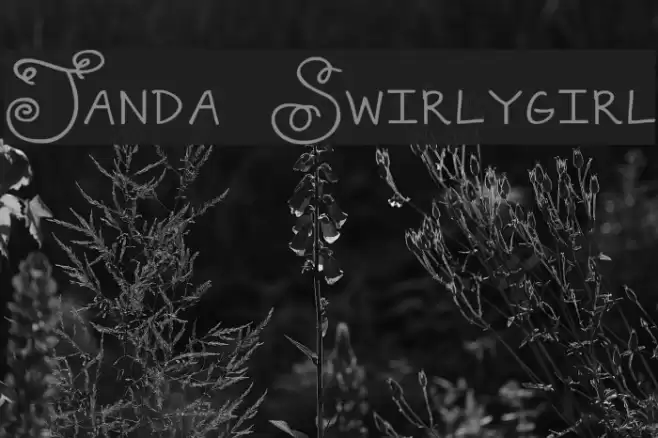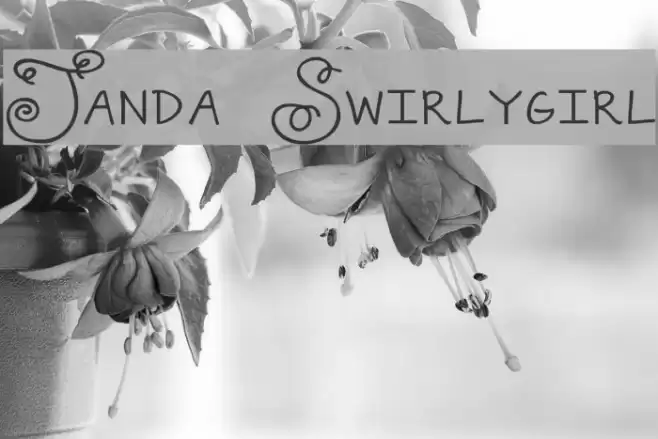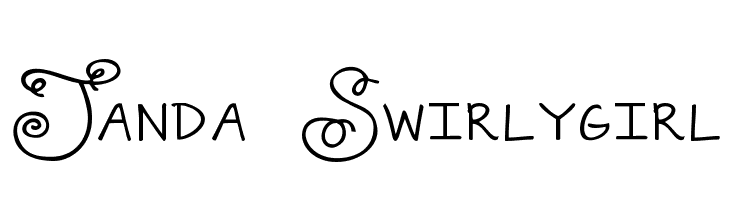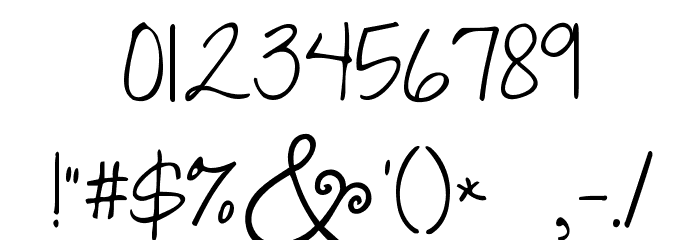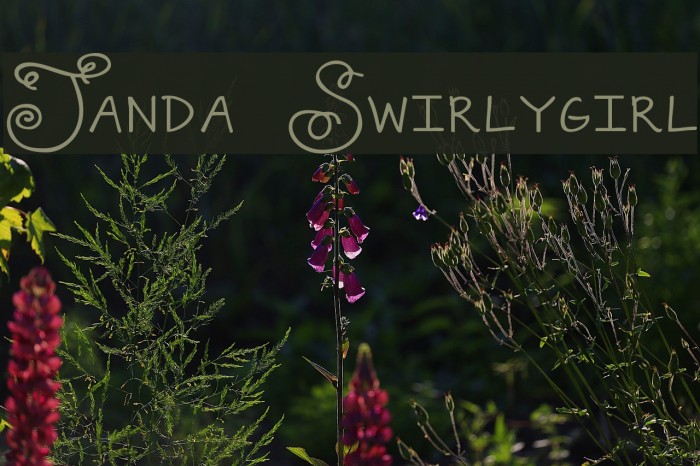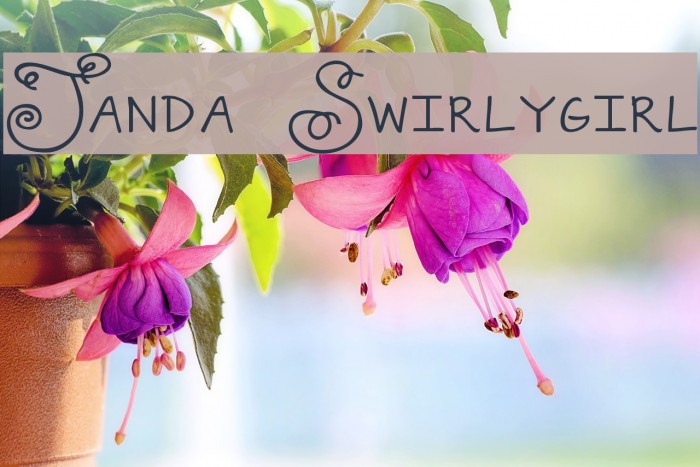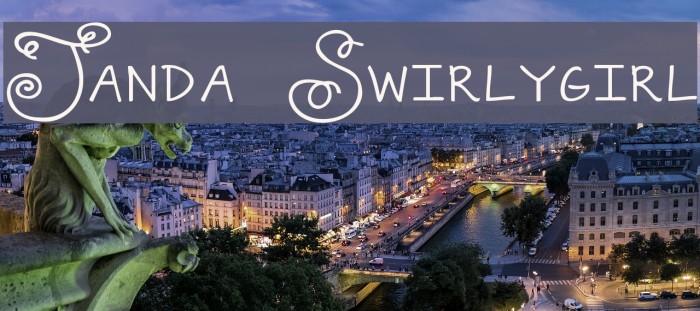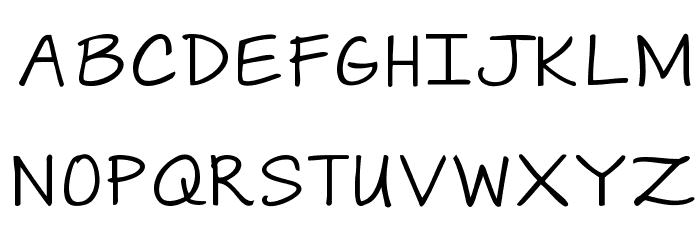
Janda Swirlygirl Font
Janda Swirlygirl Description
This font features a whimsical and playful design with intricate swirls and curls adorning each character. The uppercase letters are particularly ornate, with elaborate loops and embellishments that give a sense of movement and creativity. The lowercase letters maintain a more straightforward yet still playful style, complementing the uppercase with a consistent flow. Numbers and special characters are designed to match the overall aesthetic, ensuring a cohesive look across all elements. This font's unique style makes it stand out, ideal for projects that require a touch of elegance and fun.
A whimsical, swirly font with playful and ornate characters from Uncategorized fonts.
- Proposed Projects: Ideal for invitations, greeting cards, children's books, and creative branding projects.
- Use Case: Headlines, Logos, Invitations